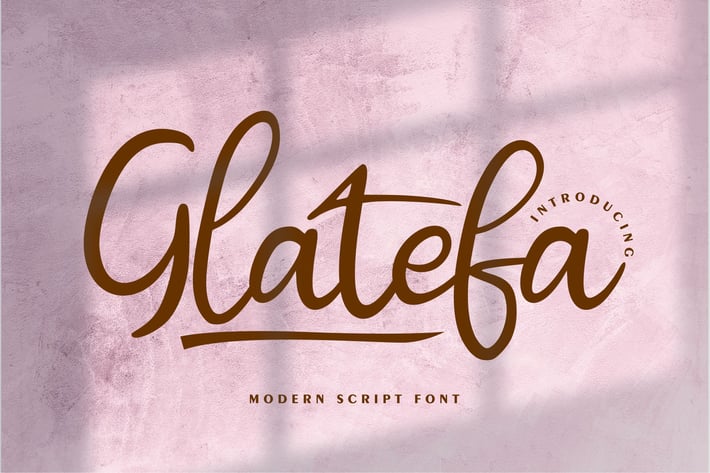
Glatefa | Modern Script Font
Glatefa | Modern Script Font with a calligraphy style, So beautiful on invitation like greeting cards, branding materials, business cards, quotes, posters, and more!